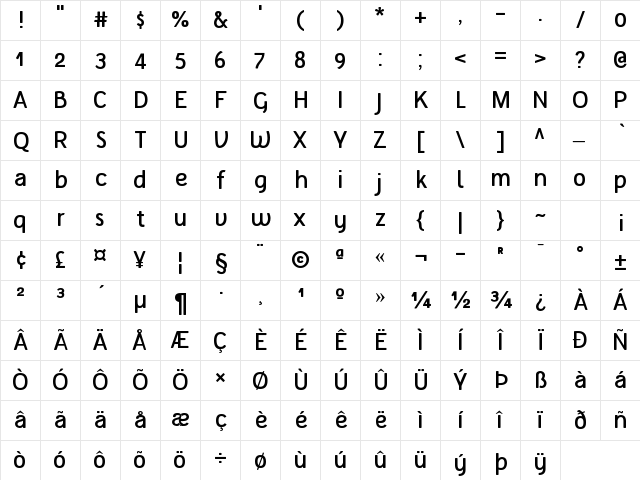
Tellural Alt Regular
Designer: Lauren Thompson
Design Context for Tellural Alt
Tellural Alt is a composed and adaptable typeface that performs quietly and consistently across a wide range of design contexts.